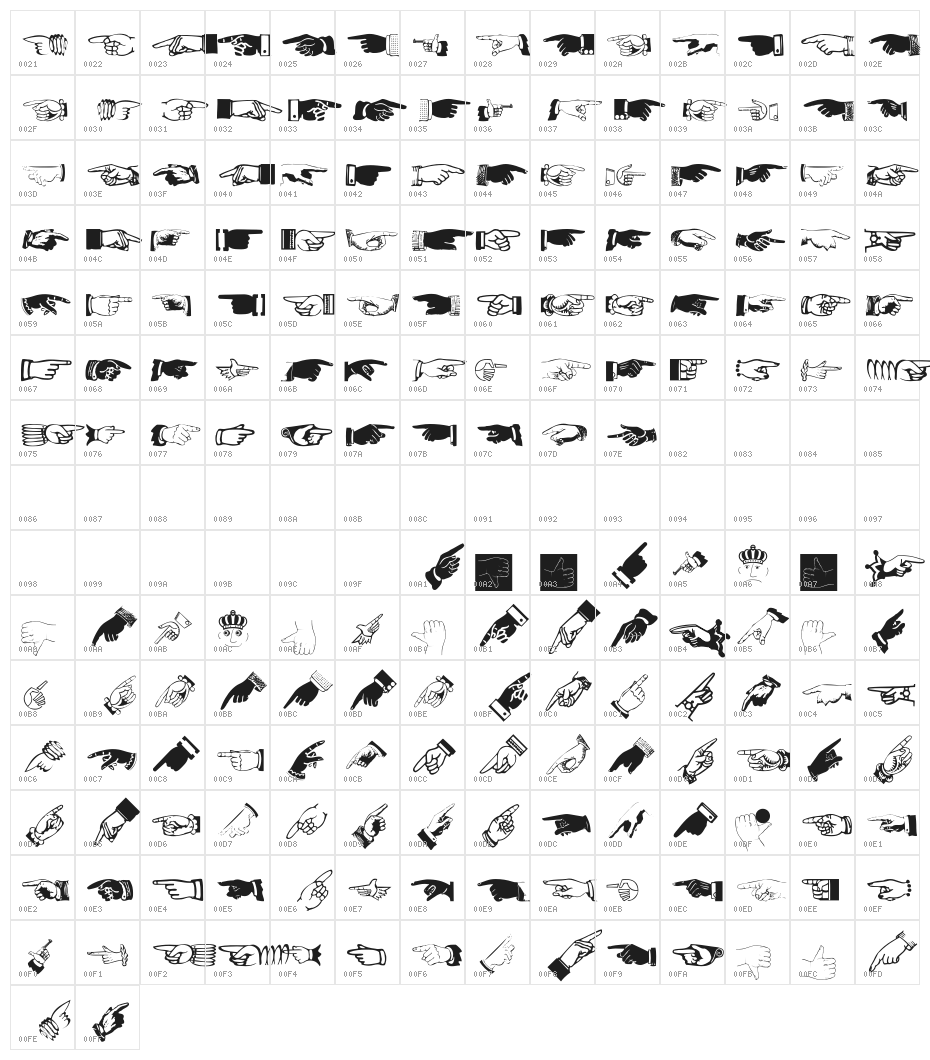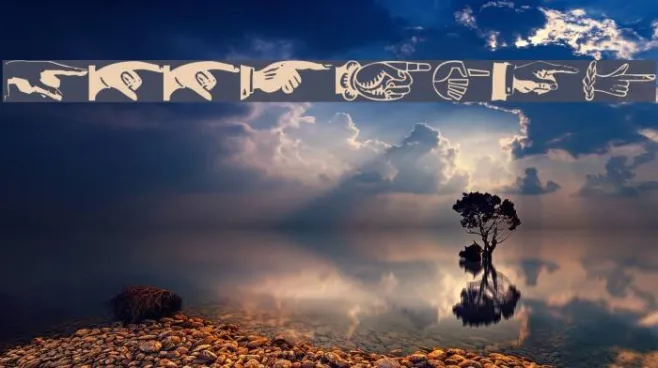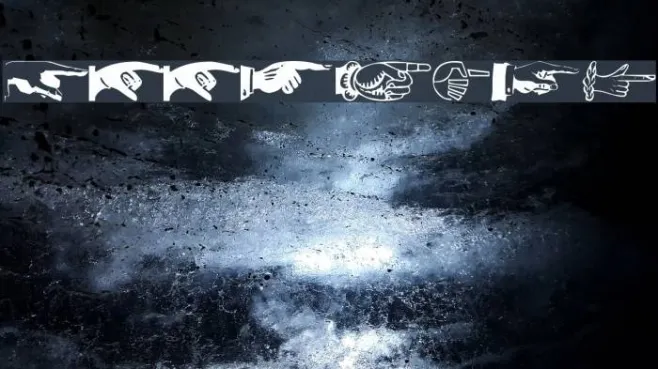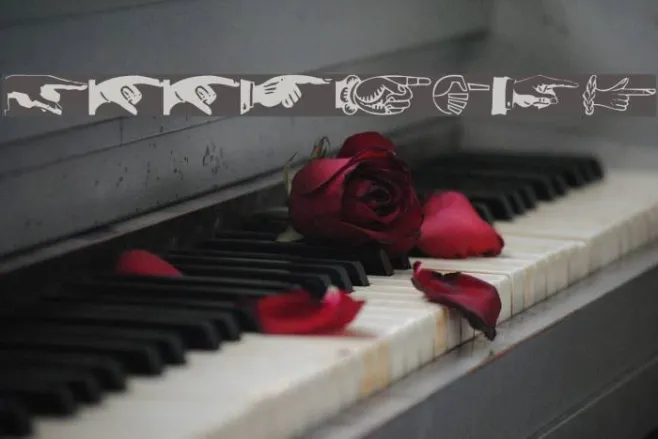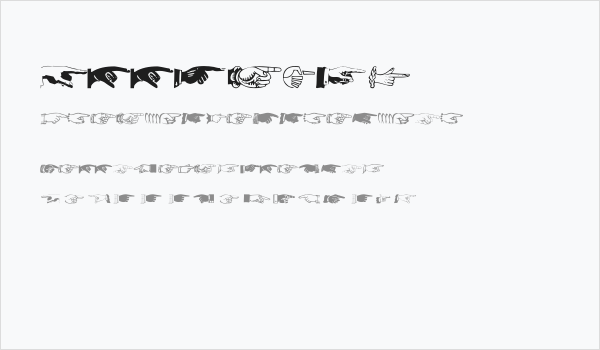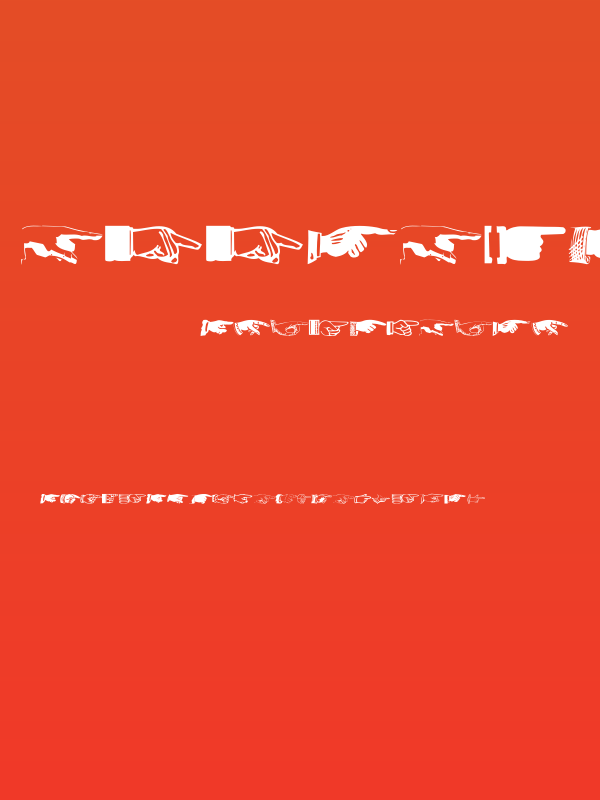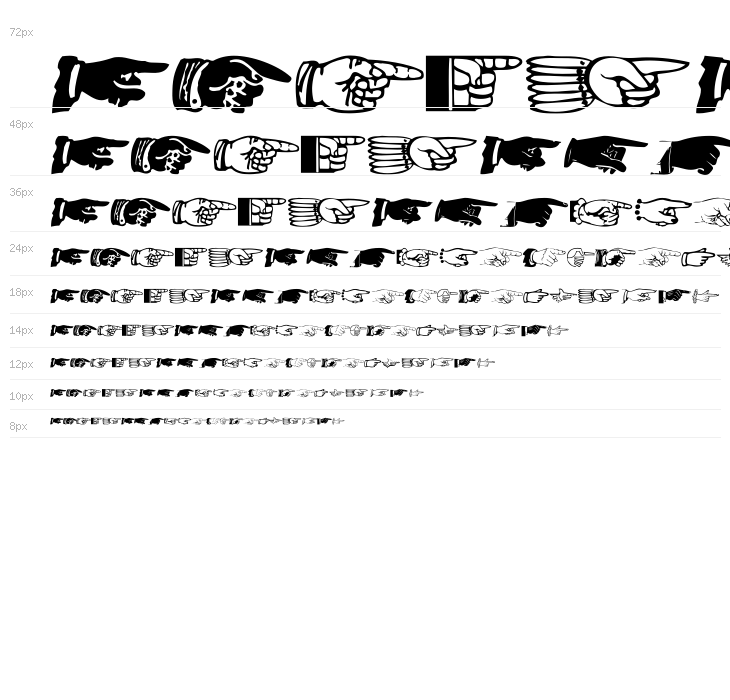
AllHands Font
AllHands Description
This unique font consists entirely of hand illustrations, each hand pointing in various directions. The hands are detailed, showcasing different styles of cuffs and gestures, creating a playful and whimsical appearance. The font is highly decorative and not intended for traditional text use. Each character is represented by a hand, making it ideal for creative projects that require a distinctive and eye-catching element. The illustrations vary in style, with some hands appearing more detailed and others more simplified, offering a diverse range of visual interest.
Use CaseLogos, Posters, Creative projects
Proposed ProjectsIdeal for creative design projects, such as posters, album covers, or event invitations, where a unique and playful element is desired.